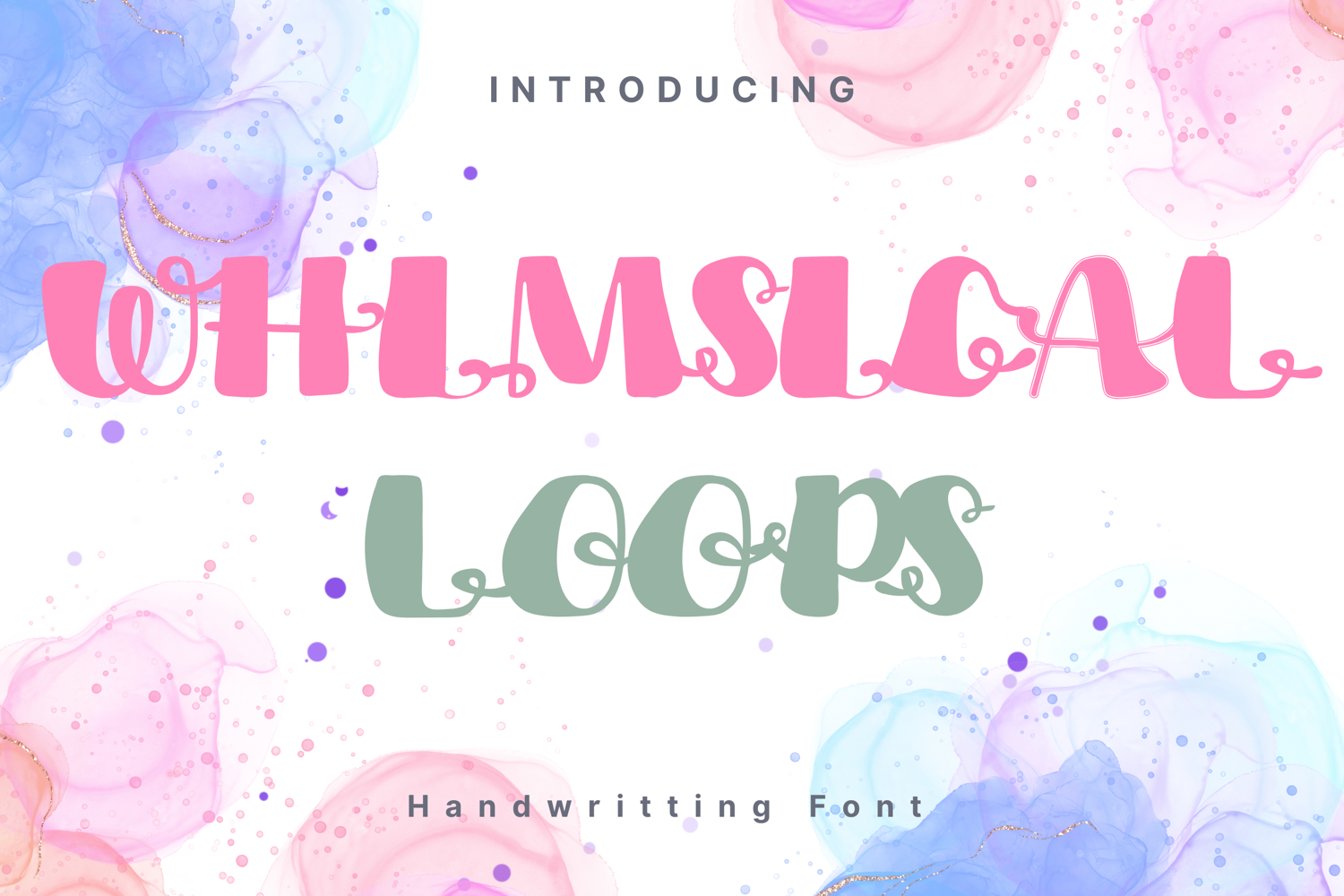
Whimsy Curl Style
WhimsyCurl
Whimsy Curl Script is a bold, decorative display font with charming curled swashes integrated into each letter. Its playful loops and whimsical design make it perfect for invitations, holiday cards, boutique branding, product packaging, and DIY craft projects. The font combines a strong, chunky base with delicate, curly accents for a fun yet elegant appearance.